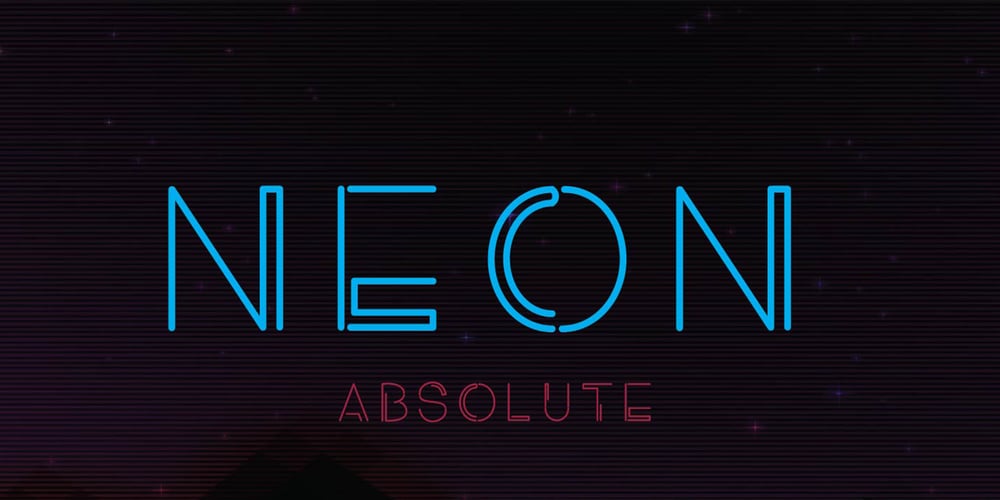
Neon Absolute
Neon Absolute font
Neon Absolute Font Family was designed by Sigit Dwipa and published by Nirmana Visual. Neon Absolute contains 1 styles and family package options. Neon Absolute was inspired by 1980’s and neon lights. It offers beautiful typographic harmony for a diversity of design projects, including logos & branding, social media posts, advertisements & product designs.